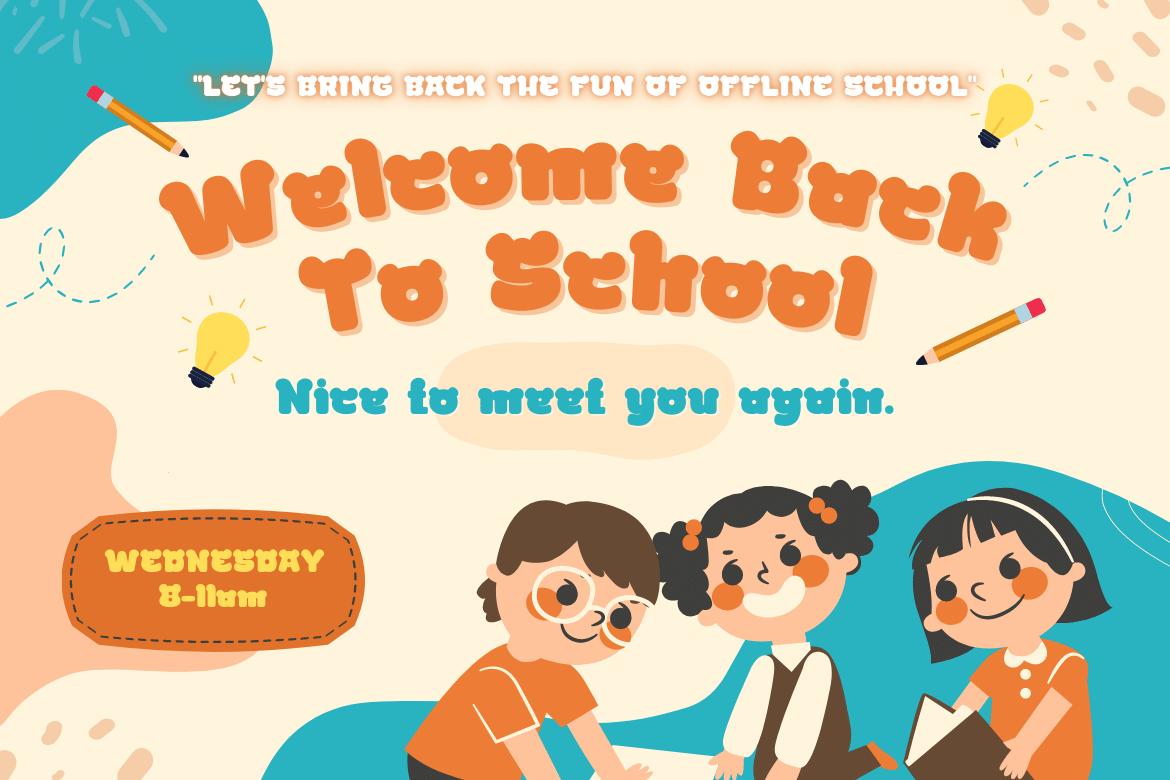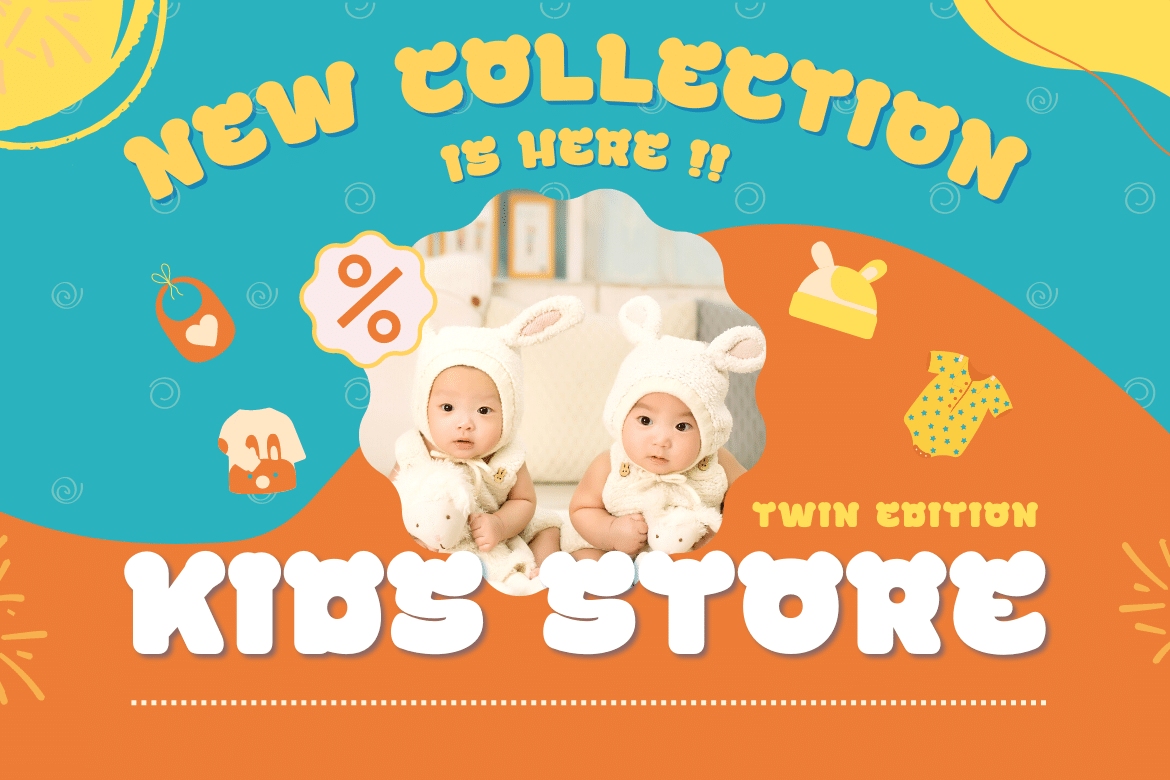
Gencis Font
Gencis Display Font
It can be used as the title of your news article, or it can be used in your search button. Or you can even use it as a subtitle in various visual media to promote your company.
of course, your various design projects will be perfect and extraordinary if you use this font because this font is equipped with a font family, both for titles and subtitles and sentence text, start using our fonts for your extraordinary projects.